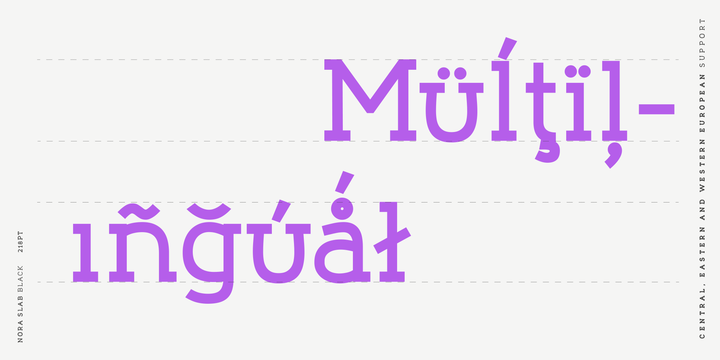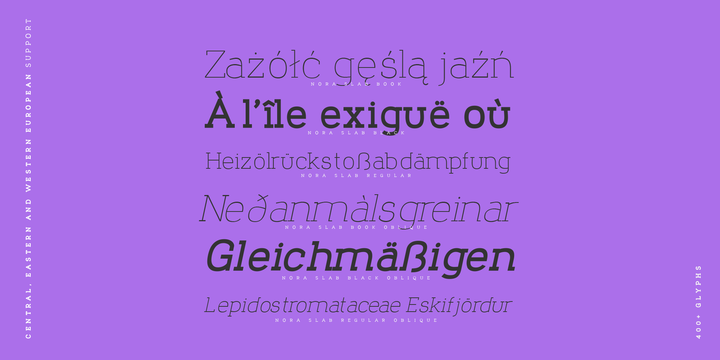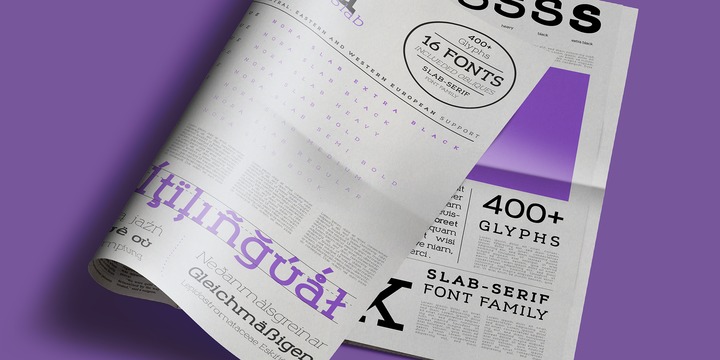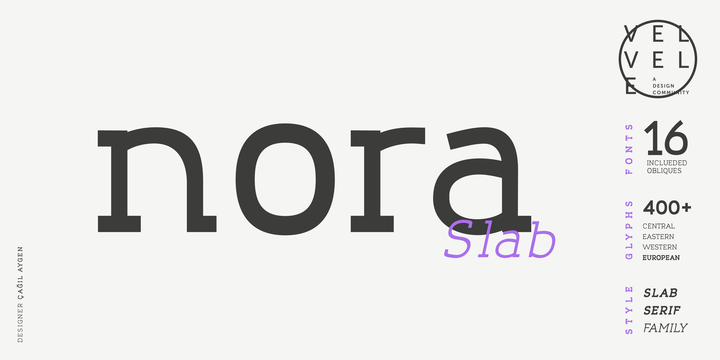
Nora Slab Font Family
Nora Slab blends a geometric inspiration with warm humanist elements, making it the perfect choice for when you need a fresh, contemporary slab serif typeface. The companion Nora Grotesque makes the Nora family a real workhorse for any use, including web, digital, print, branding and signage.